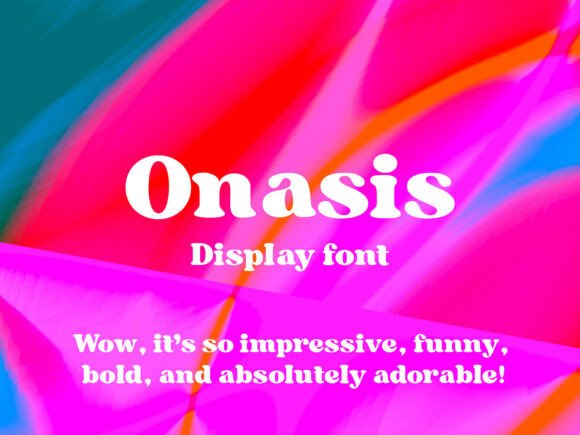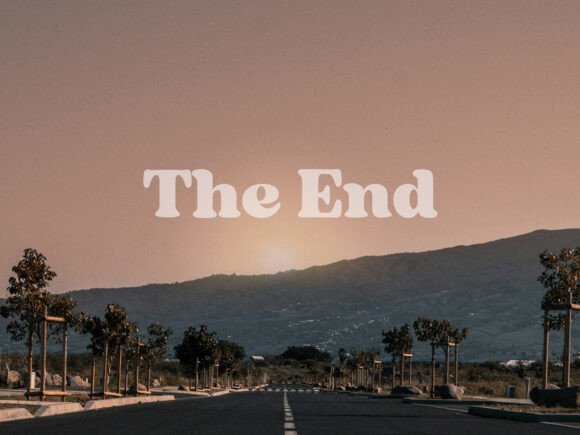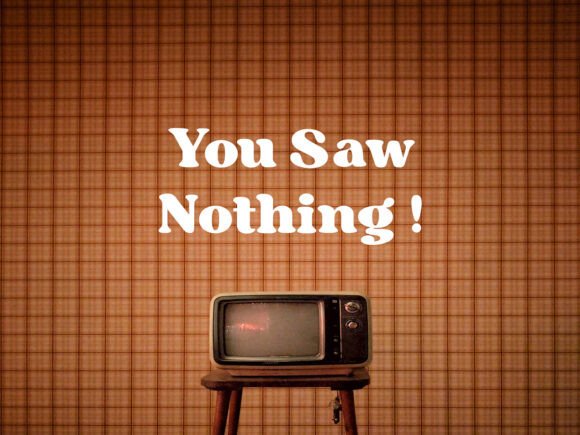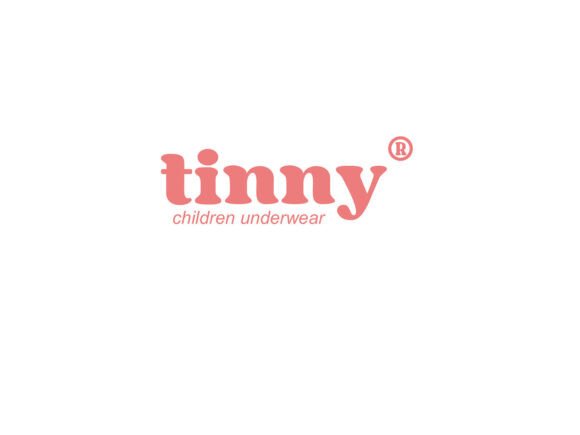
Onasis Font: A Bold Headline Font for Eye-Catching Poster Design
About the Onasis Font
Explore the possibilities with Onasis Font, a font that offers both beauty and functionality. Introducing Onasis, a stunning display font that demands attention with its bold look. Its versatility knows no bounds, making it perfect for everything from book titles to banners and movie posters. Elevate your designs with Onasis it’s the perfect font for any project!
Onasis excels as a display font for headlines, titles, and short impactful statements in branding materials, posters, and packaging. Its strong presence makes it unsuitable for body text or long-form content; readability suffers at smaller sizes. Avoid using it in UI design where legibility is paramount.
The font possesses a bold and confident personality, ideal for projects conveying power, luxury, or a strong brand identity. Think high-end fashion, corporate branding, or product launches demanding immediate attention.
Pairing Onasis effectively requires considering its weight. A delicate serif like Garamond or a clean sans-serif like Helvetica would provide a sophisticated contrast for supporting text. For a more modern feel, pair it with a geometric sans-serif such as Futura.